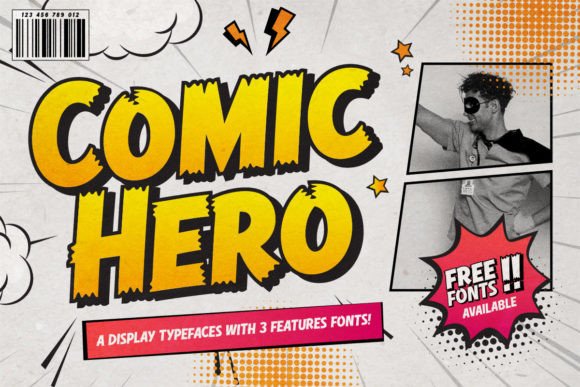
Are you looking for the perfect font to make your design more playful and attractive? Look no further than Comic Hero Font, created by kereatype. This font is not only playful but also strong, making it a versatile choice for a wide range of projects.
One of the best fonts for display boards, Comic Hero has a high level of aesthetics that makes it suitable for a variety of applications, including book covers, children's books, comics, posters, packaging, merchandise, logotype, and much more. Its playful design will grab your audience's attention and make your message stand out.
Comic Hero Font is perfect for those who want to create a fun and energetic design that exudes personality. Whether you're designing for a children's book or a marketing campaign, this font will help you achieve the look and feel you're going for.
This font family is full of emotional words that can attract your audience. The playful style will make your design more fun and approachable, while the strong design adds a level of professionalism and credibility to your work.
In summary, if you want to create a design that is both playful and strong, choose Comic Hero Font. With its high level of aesthetics and versatility, it's the perfect choice for a wide range of projects. Download Comic Hero Font today and take your design to the next level!